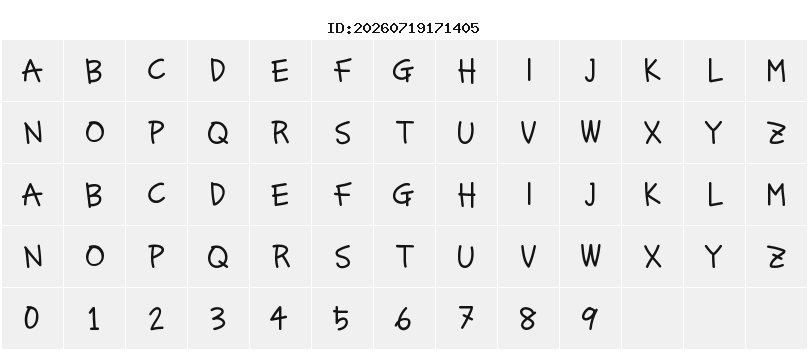
CHAMOMILE TEA Preview
• Font Name: CHAMOMILE TEA
• Full Font Name: CHAMOMILE TEA
• Version: Version 1.00 November 24, 2016, initial release
• Designer: LES KOKIRI STUDIO
About CHAMOMILE TEA.otf
CHAMOMILE TEA.otf is a modern, elegant sans-serif font designed for ultimate readability and visual harmony. Perfect for branding, headlines, web design, and print materials.